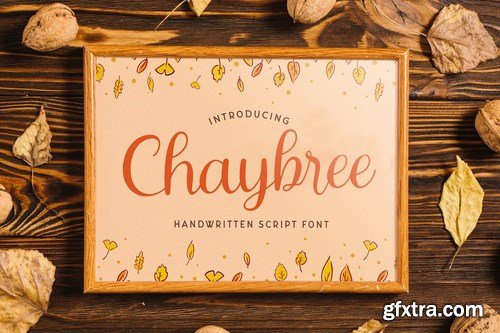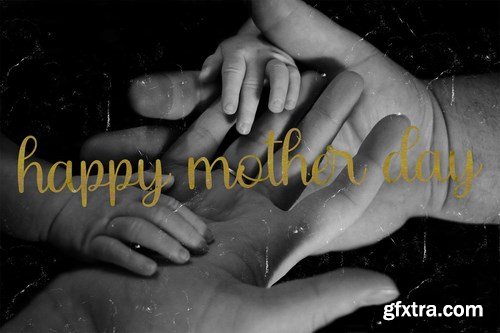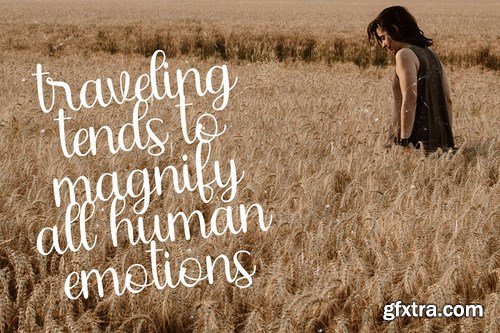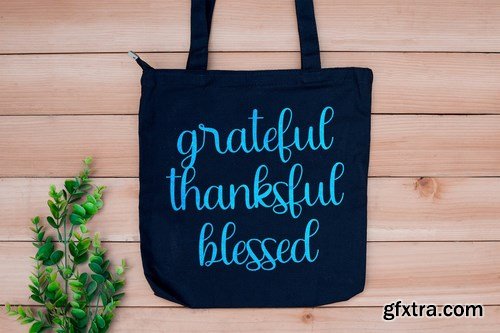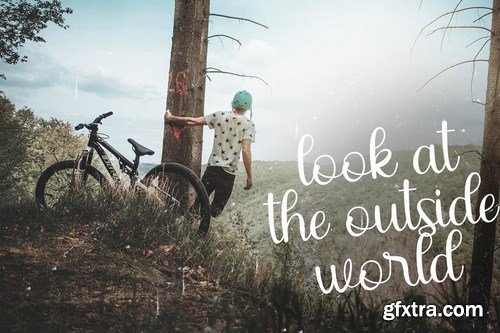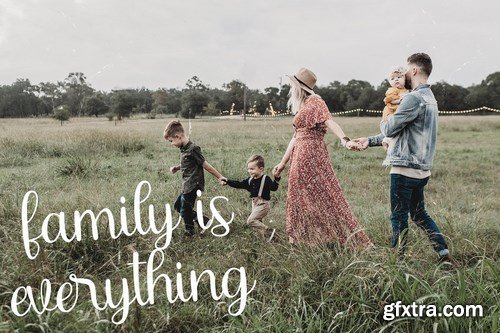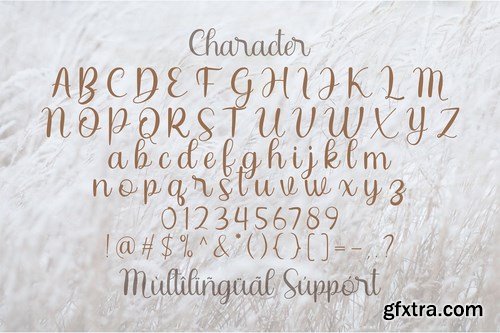
Chaybree is a script font with handwritten calligraphy style. The Chaybree font made with digital brush pen strokes that making this font look authentic. This font is perfect for fashion brand, wedding invitation, business card, logo brand, signature, and then calligraphy.